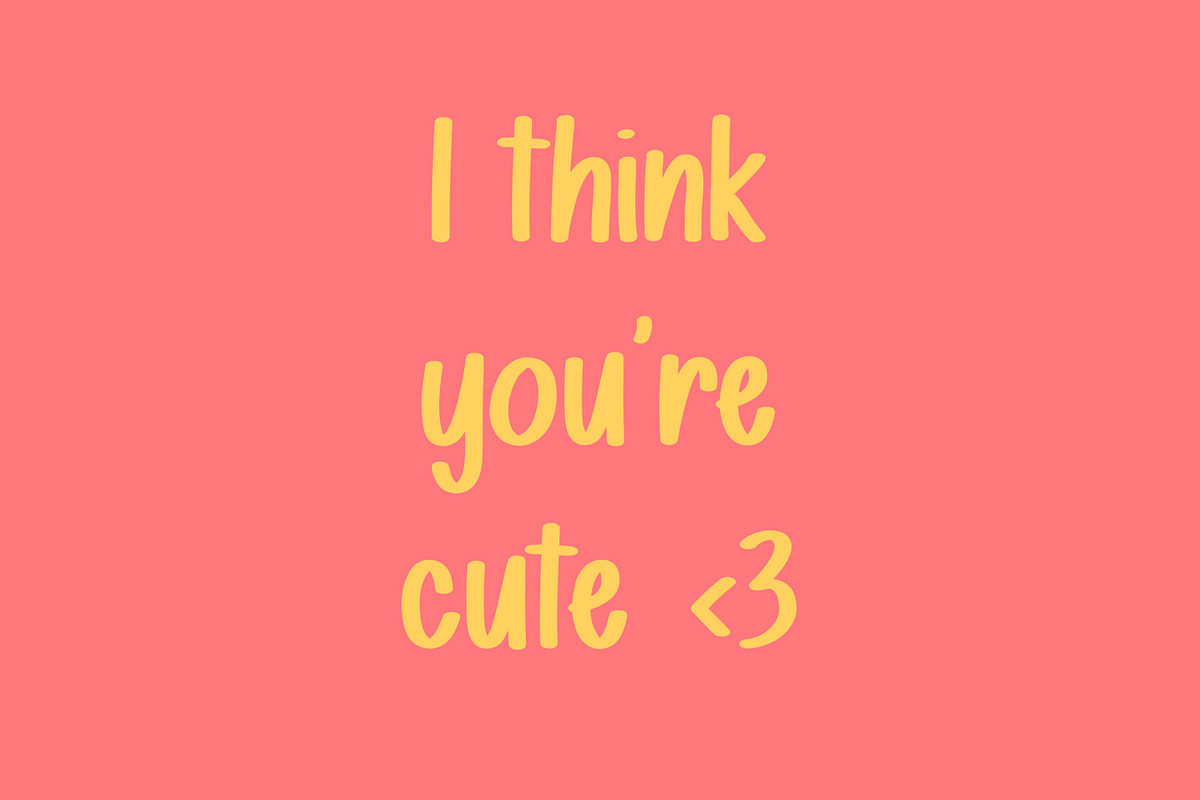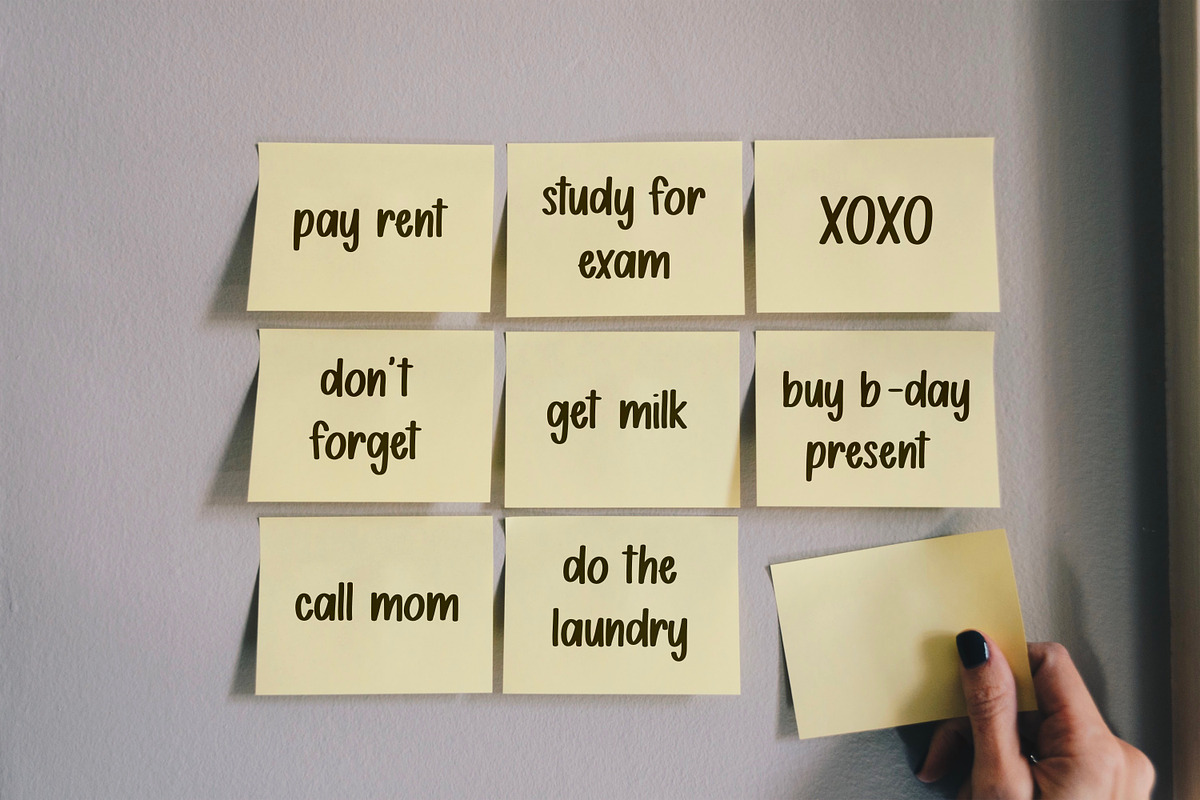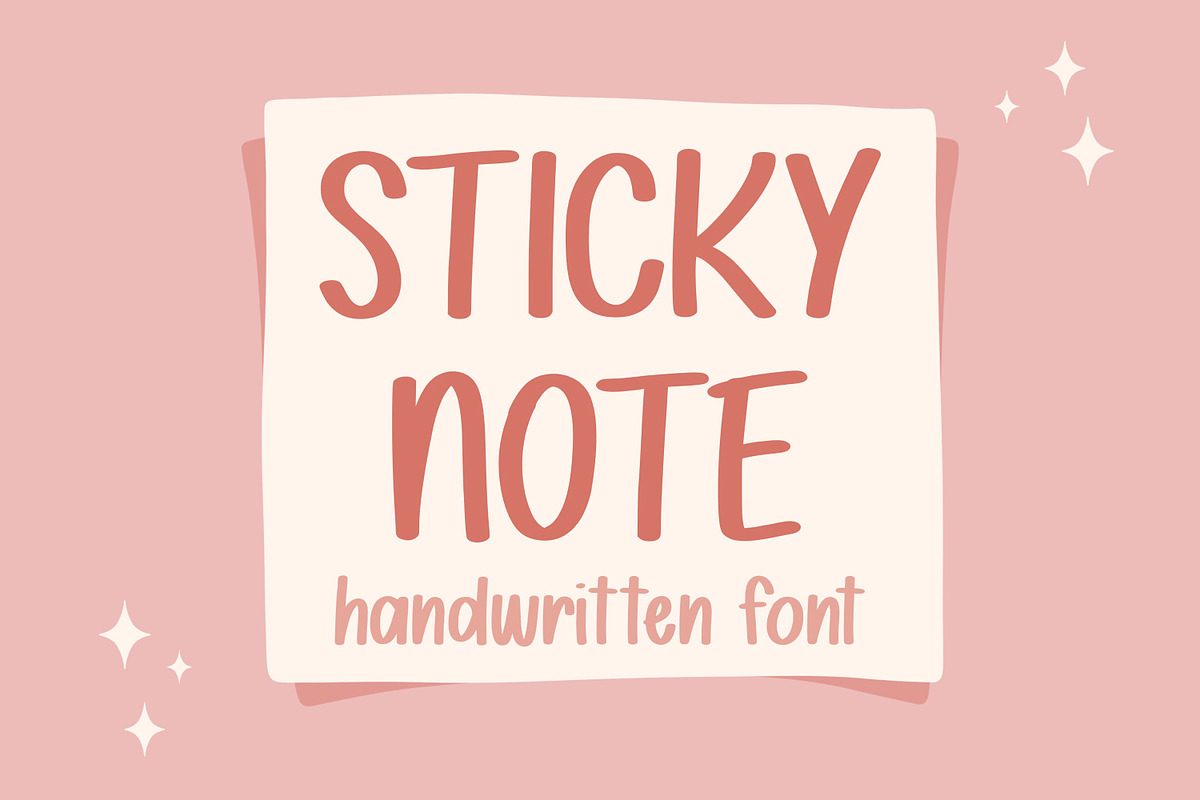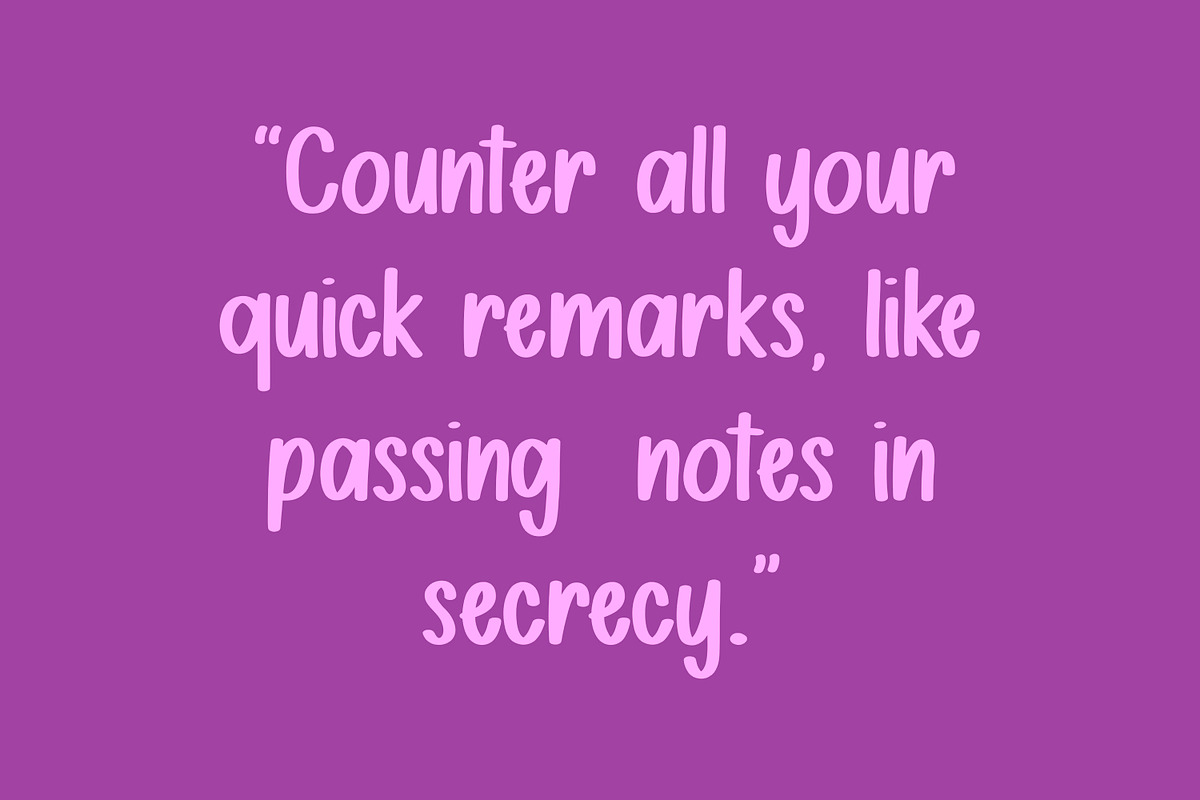
Sticky Note | Cute Handwritten Font
This is my Sticky Note handwritten/hand drawn font. This unique, bold font will add a fun, happy, handmade touch to your design! This versatile font is great for playful and casual designs, logos, posters, notes, etc.